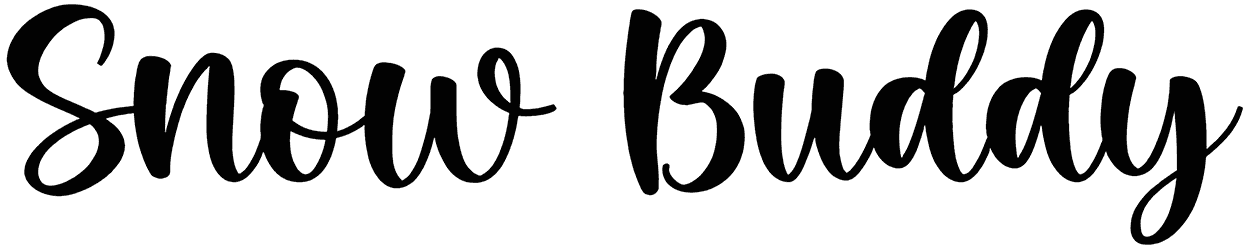
Snow Buddy Font
With this playful and appealing handwritten font, your design will be adorable and ravishing. The characters of the Snow Buddy font have soft and curvy styles that are going to make your words more impressive. Use this postcard font for your novel layouts, namely a unique tattoo, a Thanksgiving postcard, and so forth, and enjoy the cute outcome.